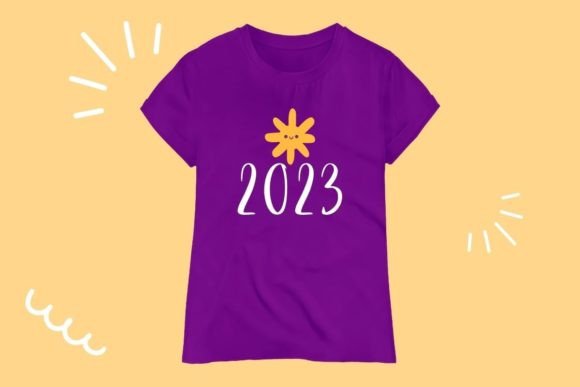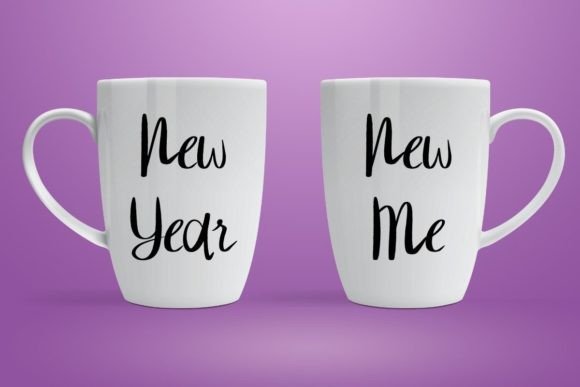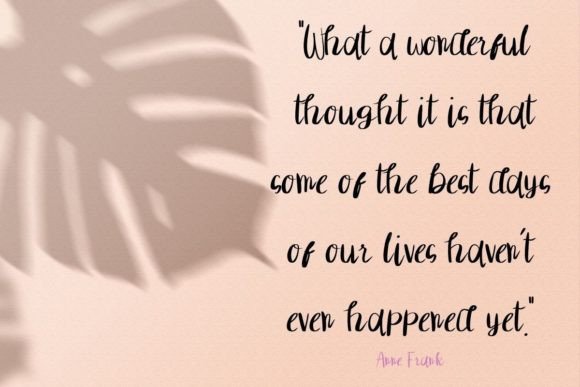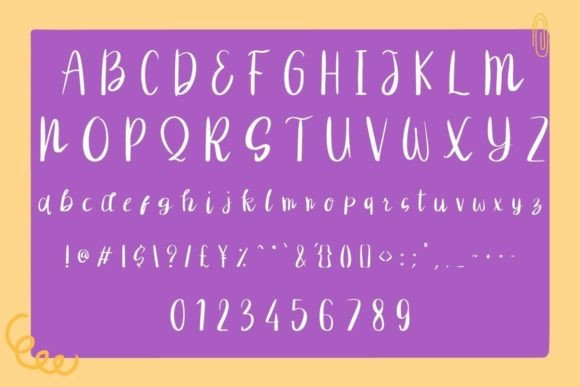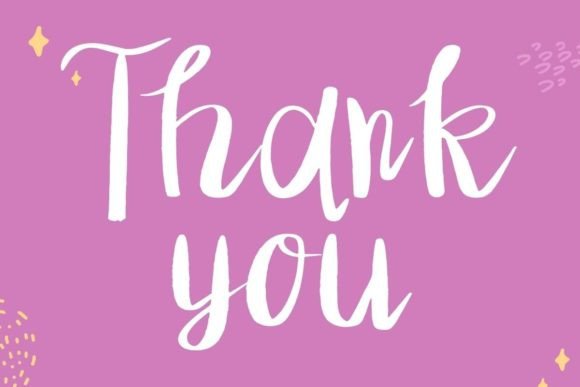
Violet Font
About Violet Font
Violet is a whimsical and relaxed handwritten script font designed to bring charm and personality to any creative project. This font’s playful and easygoing style makes it a versatile choice for a wide range of design needs. Whether you’re working on invitations, logos, social media posts, or branding materials, Violet adds a unique and memorable touch that helps your work stand out.
Whimsical and Relaxed Style
The hallmark of Violet font is its whimsical and laid-back nature. Its smooth, flowing strokes create a natural handwritten effect that feels both friendly and stylish. This relaxed vibe allows your designs to connect on a personal level while maintaining a polished look.
Versatility Across Projects
Violet adapts well to many different projects. From creating elegant wedding invitations to designing casual social media graphics or playful branding elements, this font delivers consistent charm. Its versatility means you can use it across various mediums without losing its appeal.
Enhance Your Creative Toolkit
Adding Violet font to your collection gives you a font that combines fun and sophistication. It is an excellent choice for designers and creatives aiming to inject warmth and originality into their work. Its approachable style makes it easy to pair with other fonts and design elements.
Key Features
• Whimsical and relaxed handwritten script
• Suitable for branding, invitations, social media, and more
• Adds warmth and charm to any design
• Versatile and user-friendly for many creative projects
Why Choose Violet Font?
Violet font stands out for its unique blend of playfulness and elegance.
In conclusion, Violet font is a delightful and versatile handwritten script that adds personality and charm to your designs. Its whimsical nature and relaxed flow make it a must-have font for anyone looking to elevate their creative projects with a personal touch.